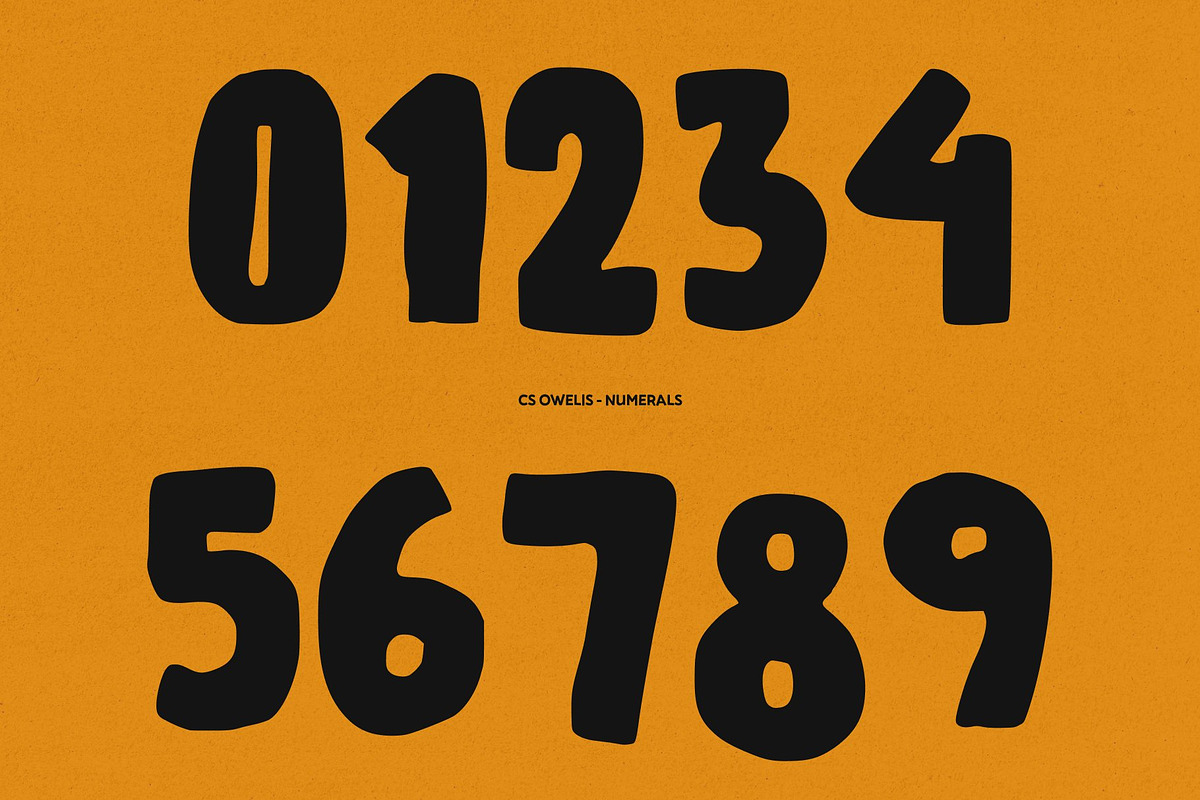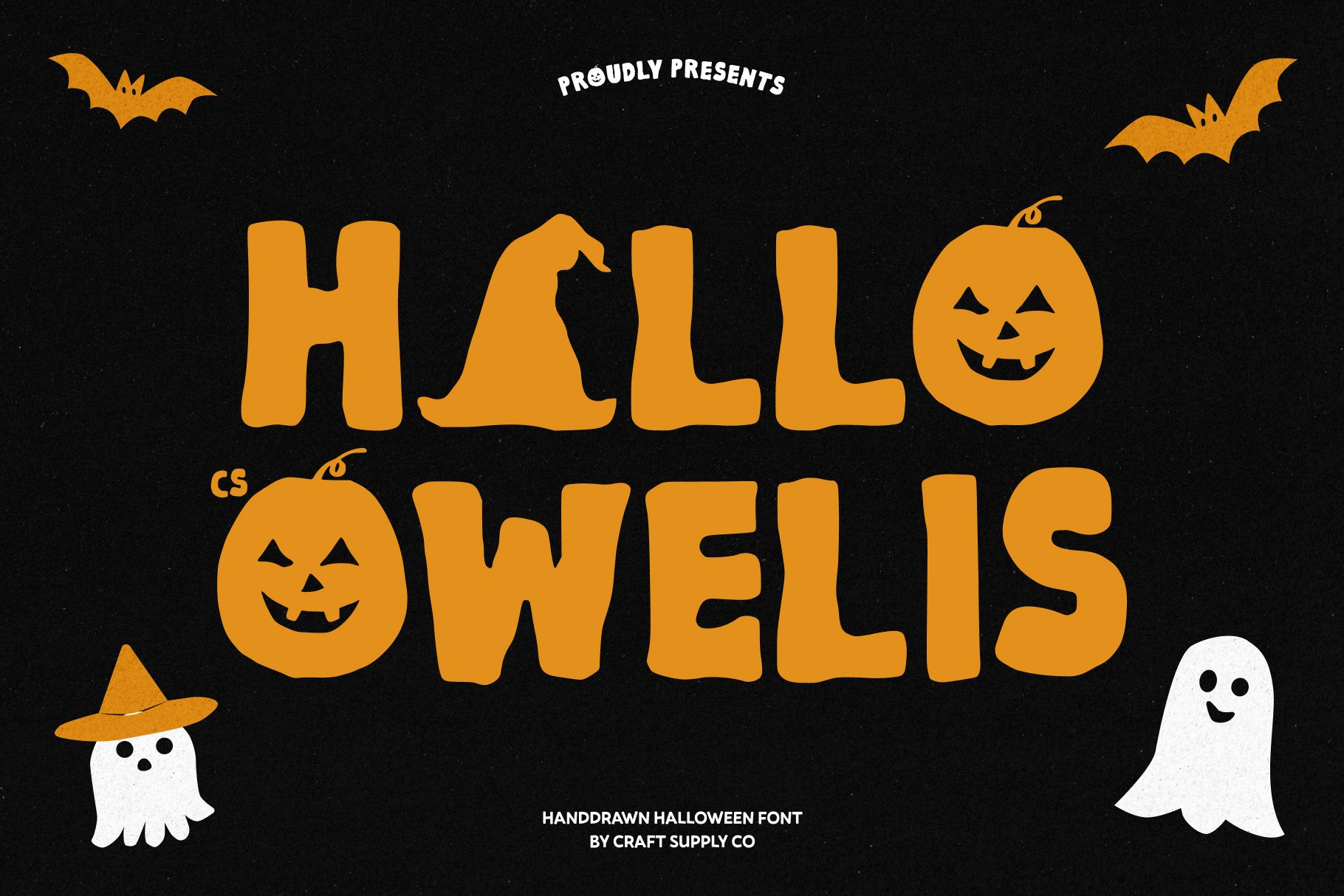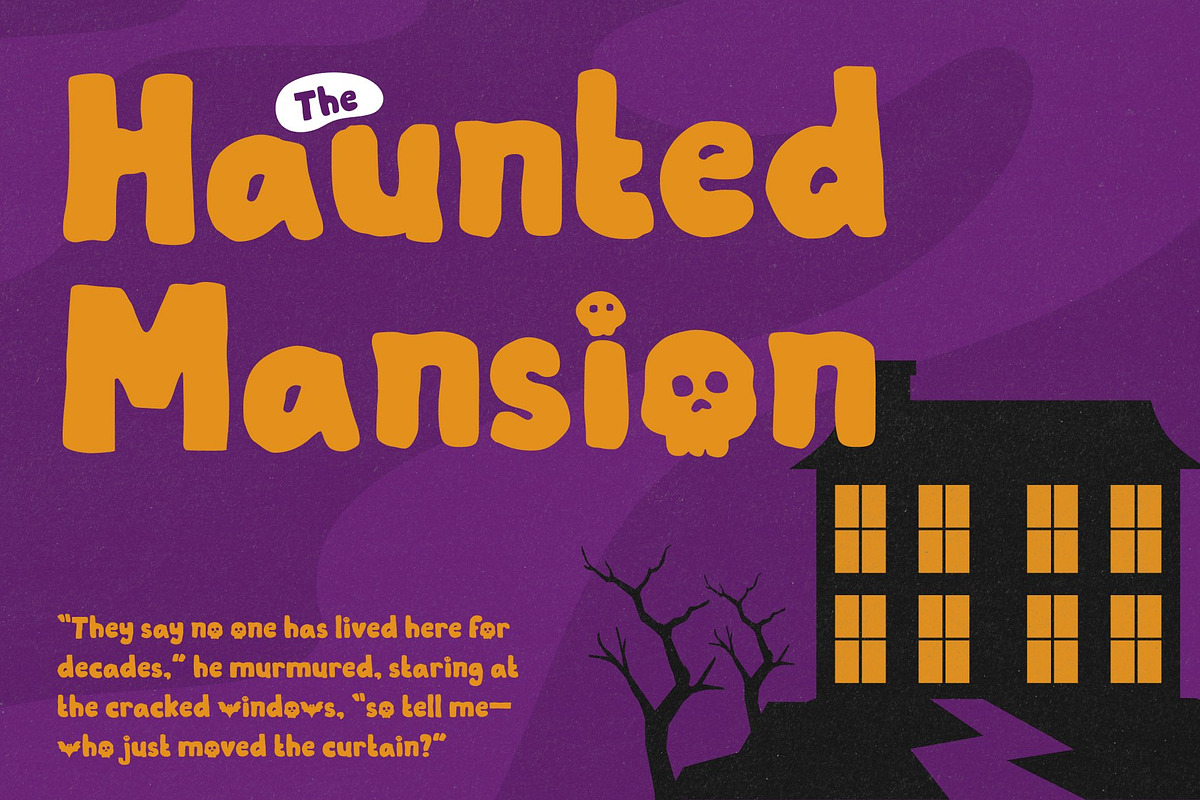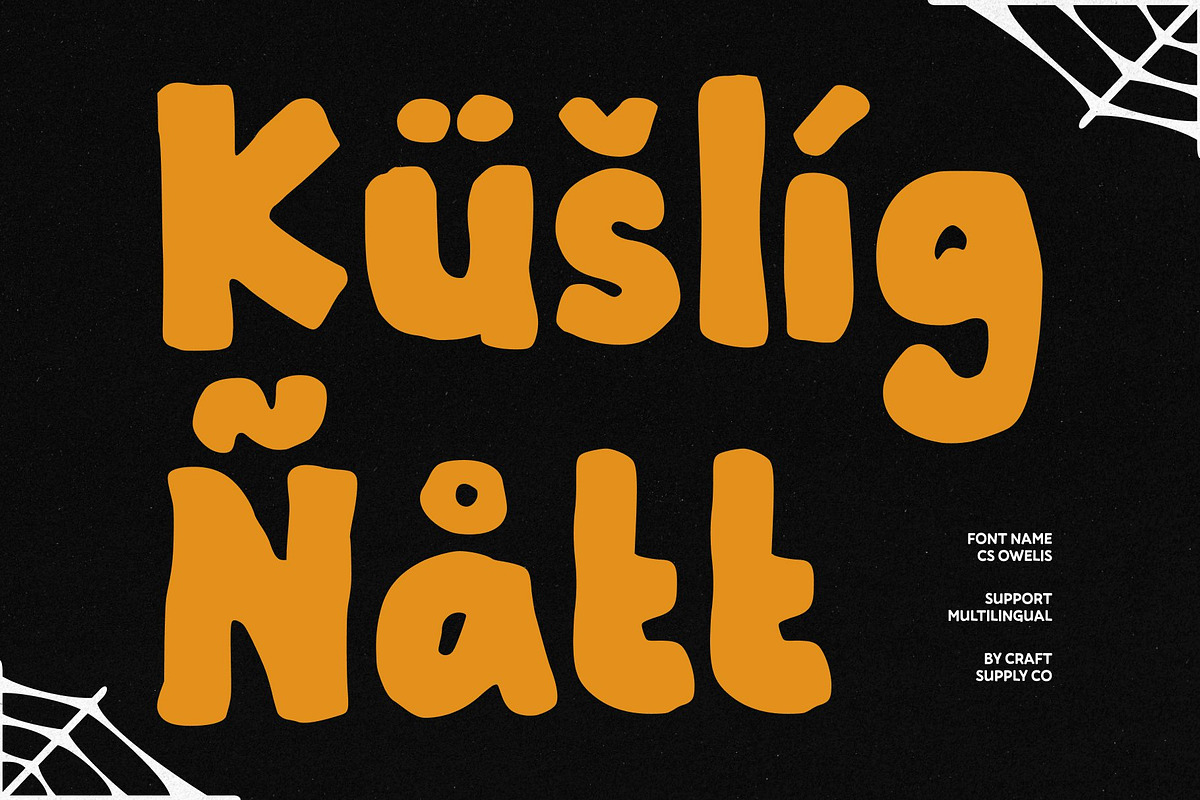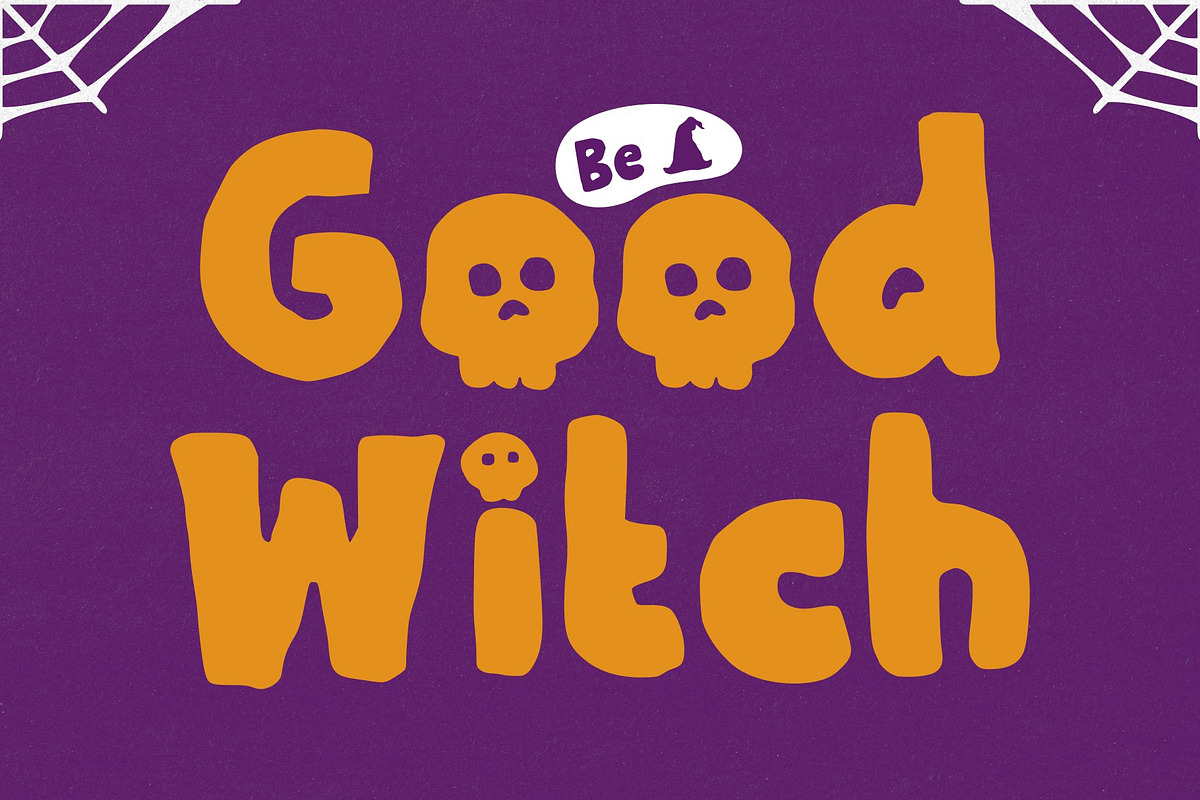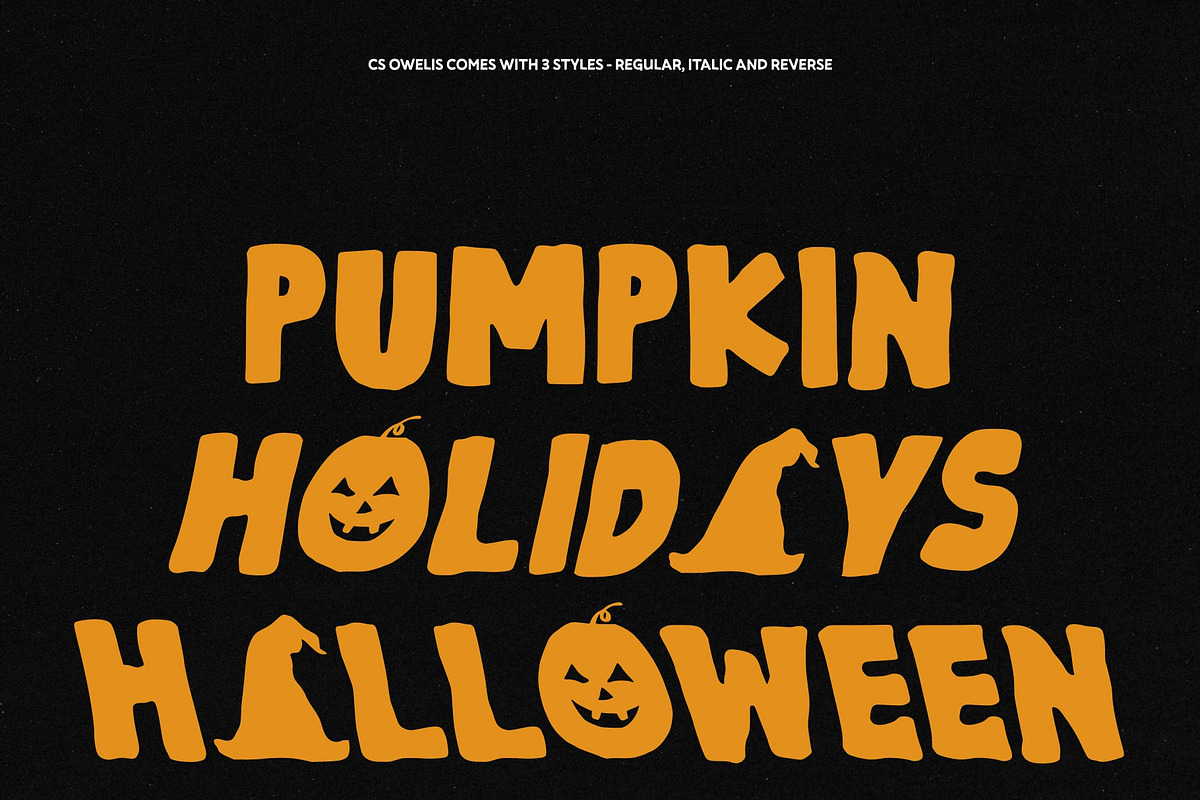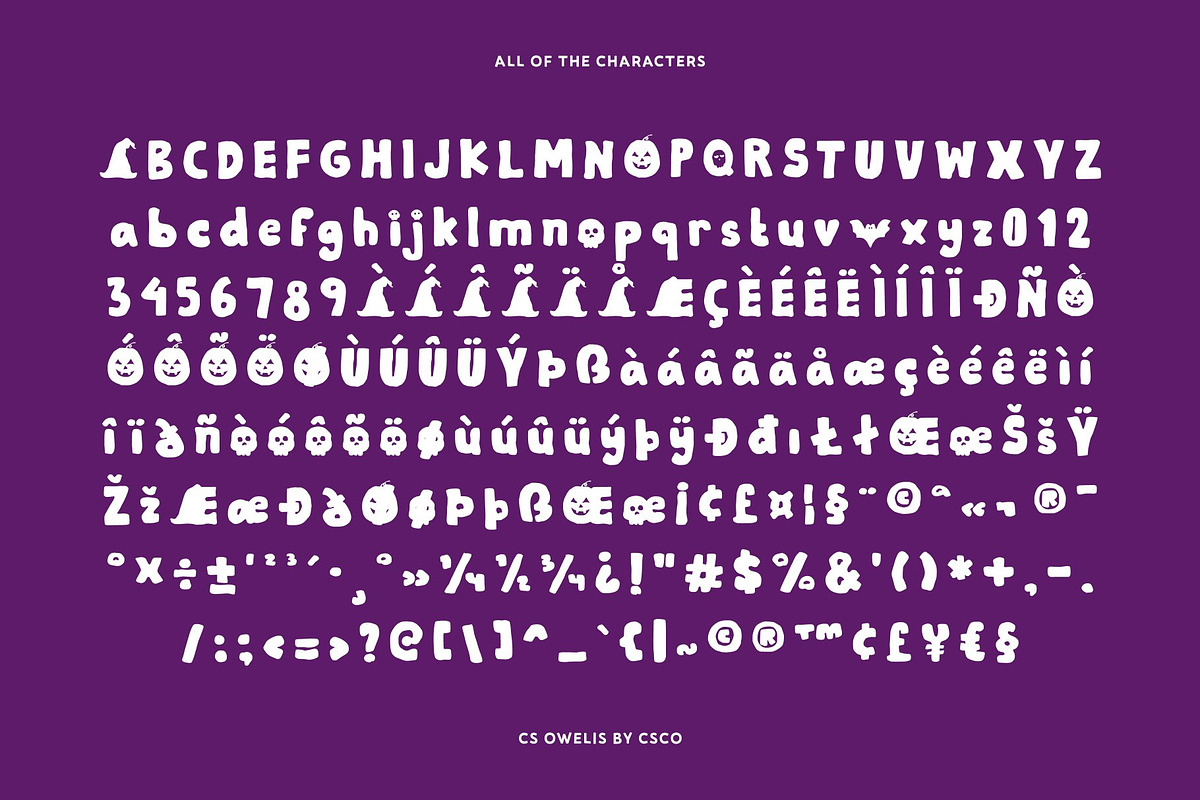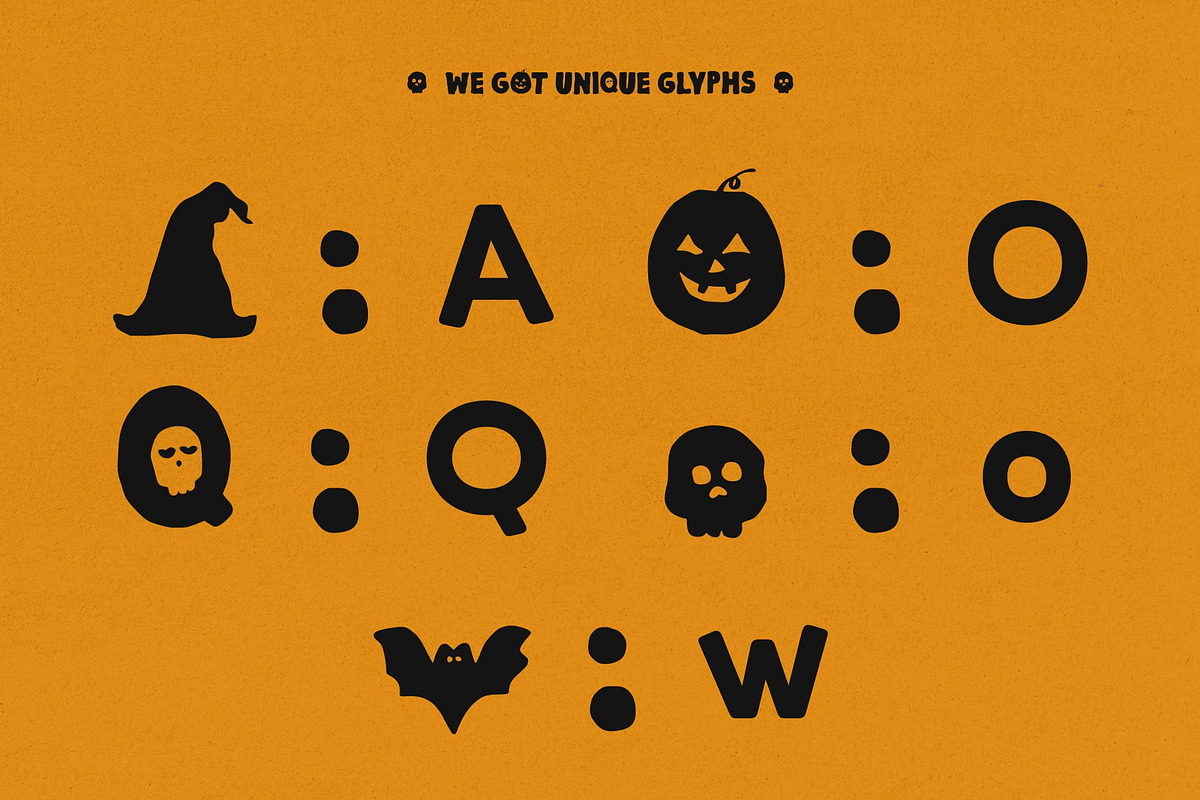
CS Owelis – Handdrawn Halloween Font
Bring your seasonal projects to life with CS Owelis, a hand-drawn display font crafted specifically for the Halloween season. Filled with wonderfully messy strokes and organic imperfections, this unique typeface captures a delightful aesthetic that balances a playful personality with a spooky-but-cute vibe. Every character is designed to inject immediate charm and character into your festive creations, ensuring your message stands out with an unmistakable handmade warmth that digital type often lacks.
Whether you are designing eye-catching posters, striking titles, whimsical party invitations, custom stickers, seasonal quotes, or product labels, this versatile font is the ultimate toolkit for any project needing a touch of autumn magic. Beyond the standard character set, CS Owelis comes fully loaded with extra spooky graphical elements including cauldrons, witch hats, friendly ghosts, and fluttering bats. These delightful extras allow you to build cohesive, immersive designs effortlessly without relying on outside artwork.
The visual style successfully navigates the sweet spot between festive and approachable, delivering fun Halloween elements that remain lighthearted rather than genuinely scary or gory. t is an ideal typographic solution for designers and creators looking to infuse their seasonal output with instant personality and handcrafted authenticity.
Elevate your October aesthetics and make every headline, label, and decoration unforgettable with a typeface designed to make your seasonal storytelling truly magical and fun.
CS Owelis Regular
CS Owelis Italic
CS Owelis Reverse Italic